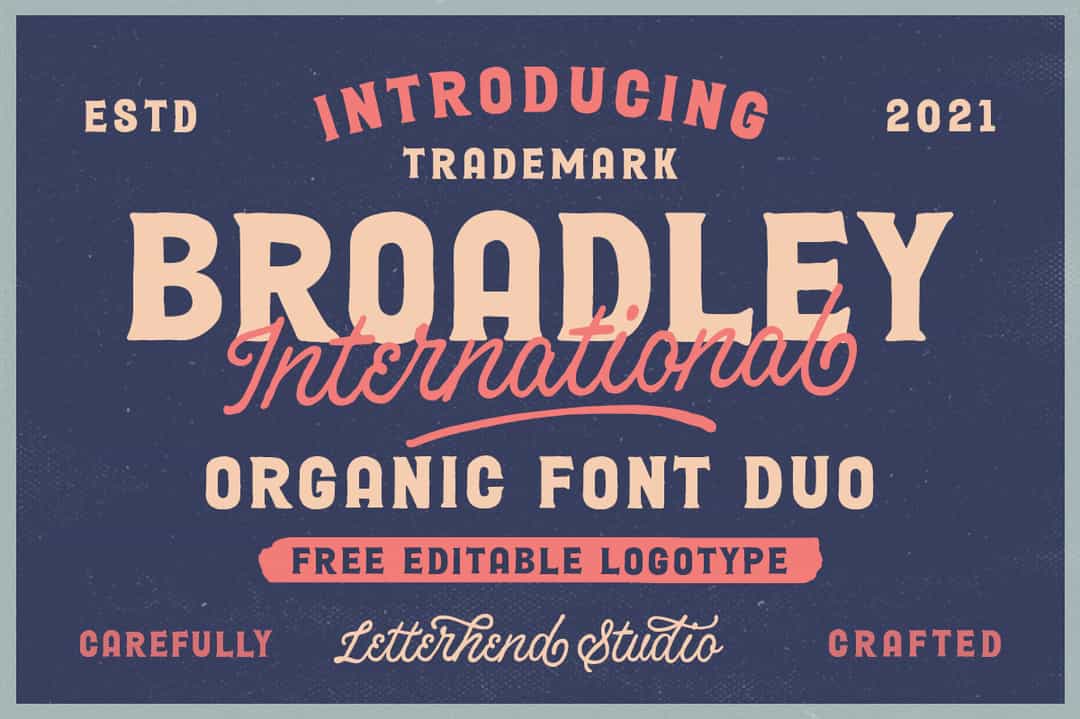
Broadley Font Duo is a hand-drawn bold serifs and scripts font with vintage elements that gives it a timeless aesthetic. This font was designed to be used in headlines, logos or signage; also formal formats such as invitations labels magazines logos books greeting cards wedding or anniversary cards packaging fashion makeup books stationery and labels; or for any kind of advertisement.